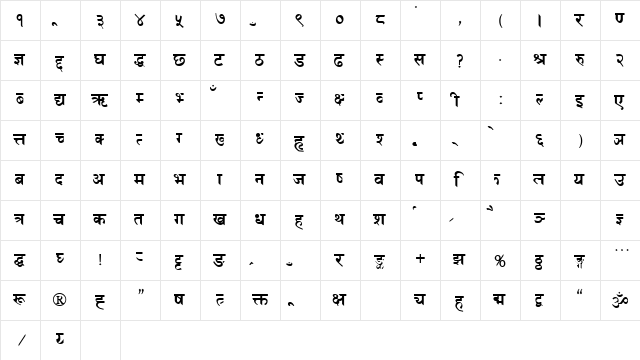
Himalayabold Regular
Design Context for Himalayabold Typeface
Himalayabold takes a measured approach to typography — its balanced proportions and neutral character make it a reliable workhorse for both digital and print work. The heavy weight commands attention and anchors typographic hierarchies.